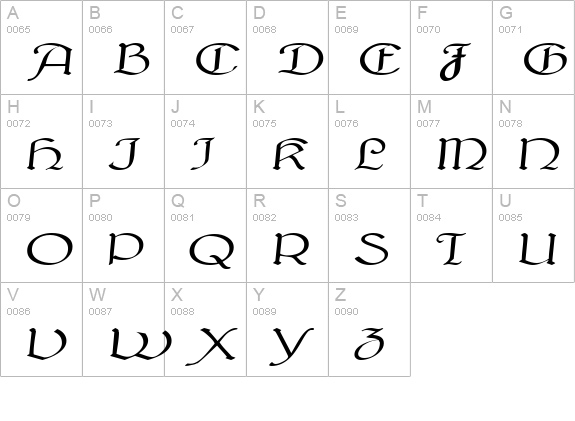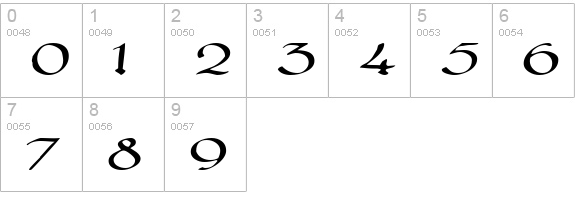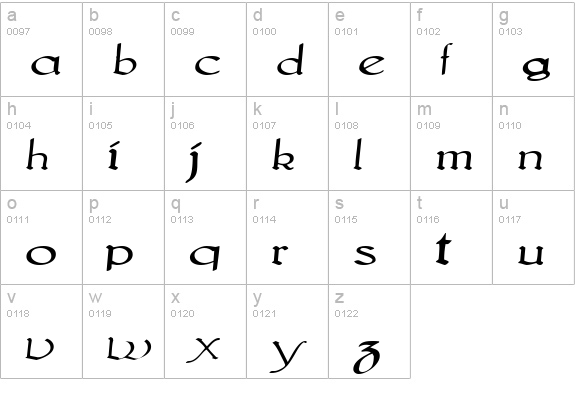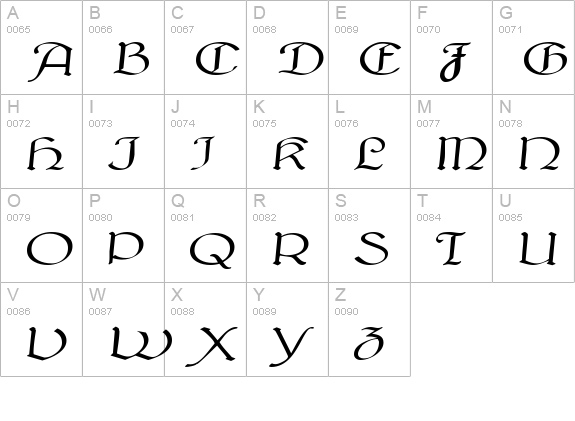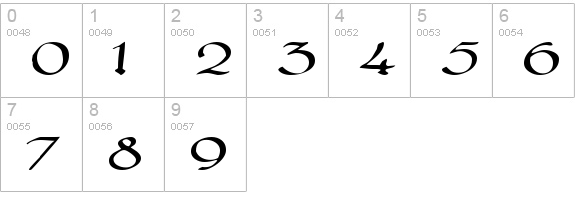
BreakersSSK Font Details
BreakersSSK font is a bold and dynamic typeface that exudes a sense of energy and strength. With its sharp lines and modern aesthetic, this font is perfect for creating eye-catching headlines and designs that demand attention. Whether used in posters, logos, or branding materials, BreakersSSK font adds a touch of boldness and sophistication to any project. The best part? BreakersSSK font is available for free download at FontsMarket.com. This means you can easily access this stylish font and incorporate it into your designs without any cost. Don't miss out on the opportunity to enhance your creative projects with the striking BreakersSSK font - download it for free today at FontsMarket.com!